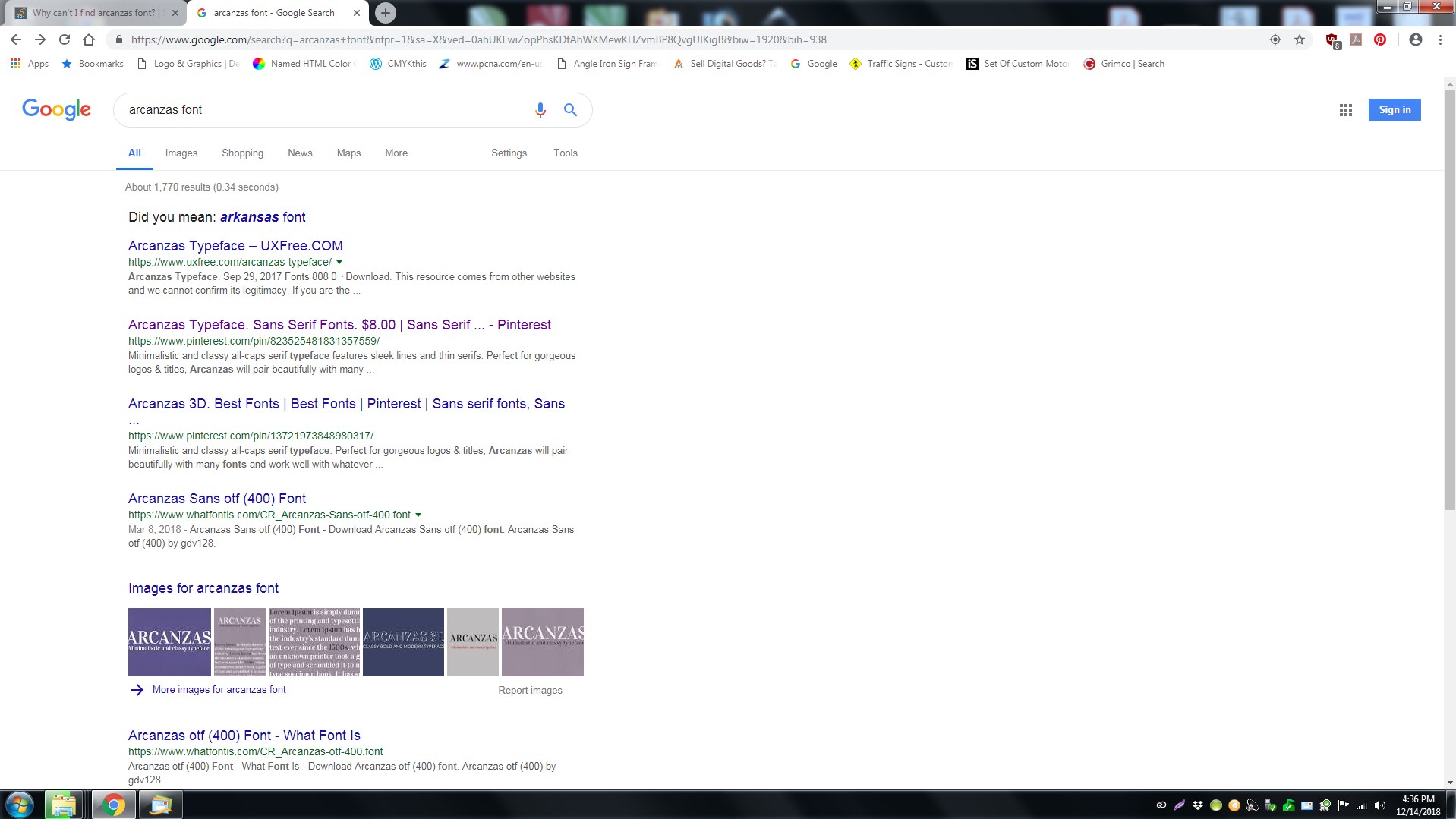
Why can't I find arcanzas font?
Missing font in pdf file. "arcanzas". I need to edit the text otherwise I wouldn't need it as editable text. I can't seem to find any such font.
I had no problem locating it with Google.
Arcanzas is a direct rip-off of Vidaloka, a free Google font. The guy literally renamed the font and sold it on Creative Market and Graphic River for a while before he was banned, and did the same for a number of other fonts. (source)
You could probably install Vidaloka and re-link all the instances of Arcanzas in your document to it.